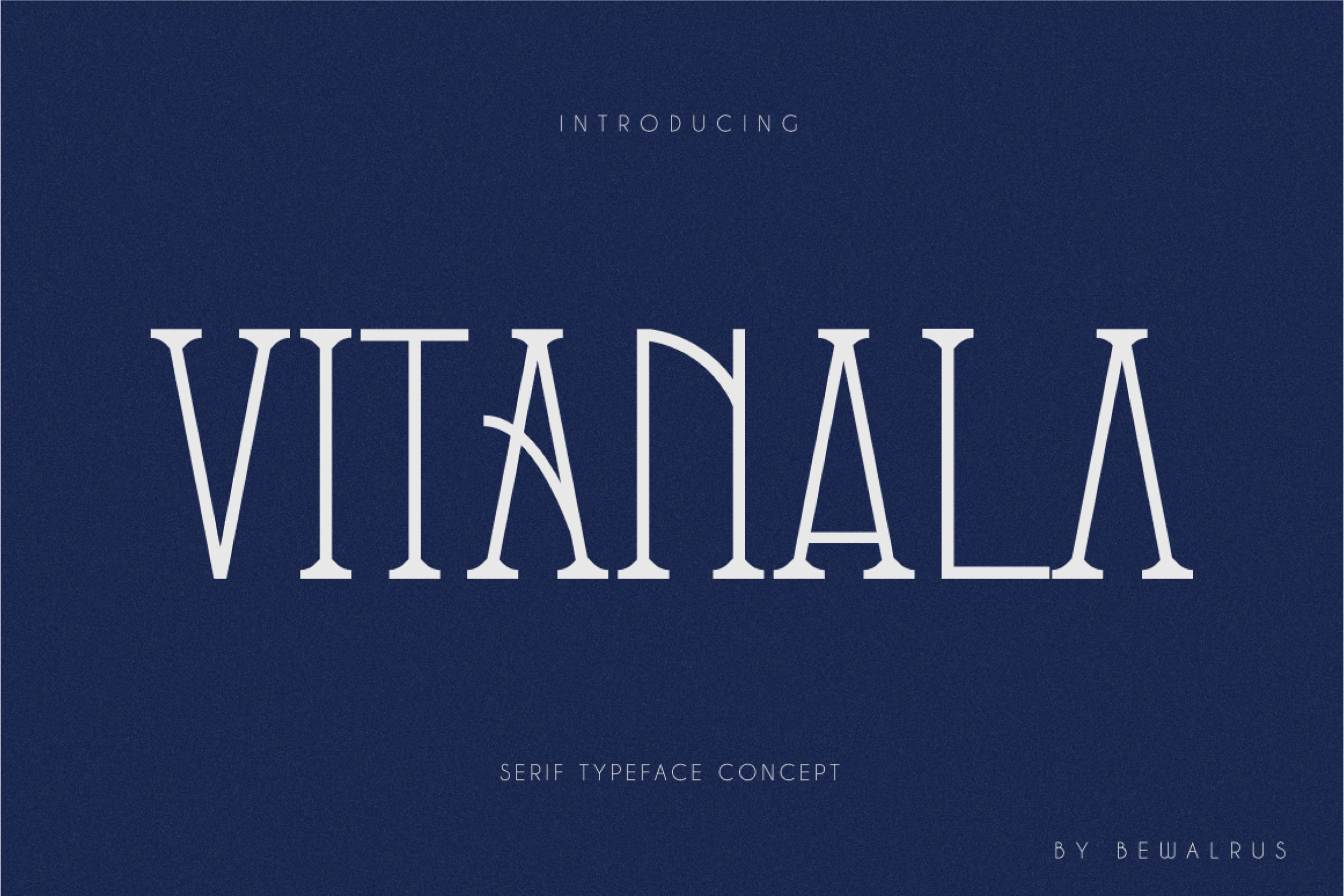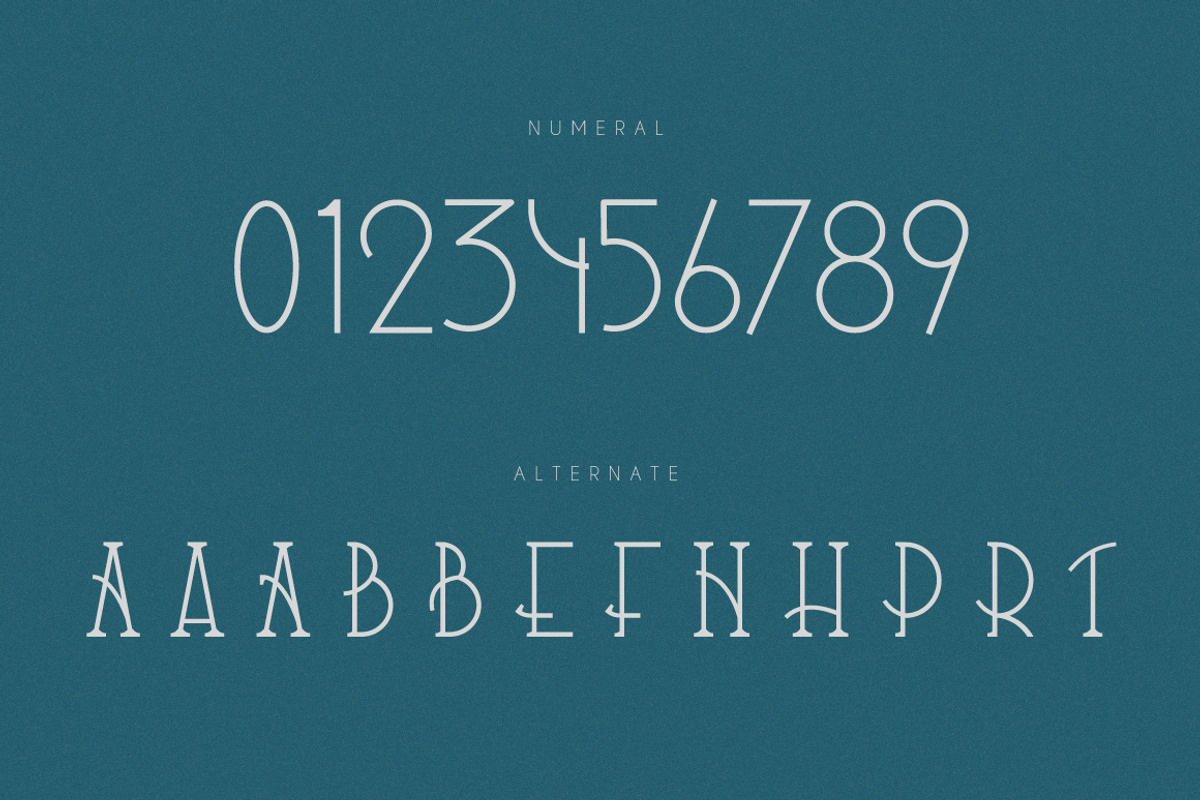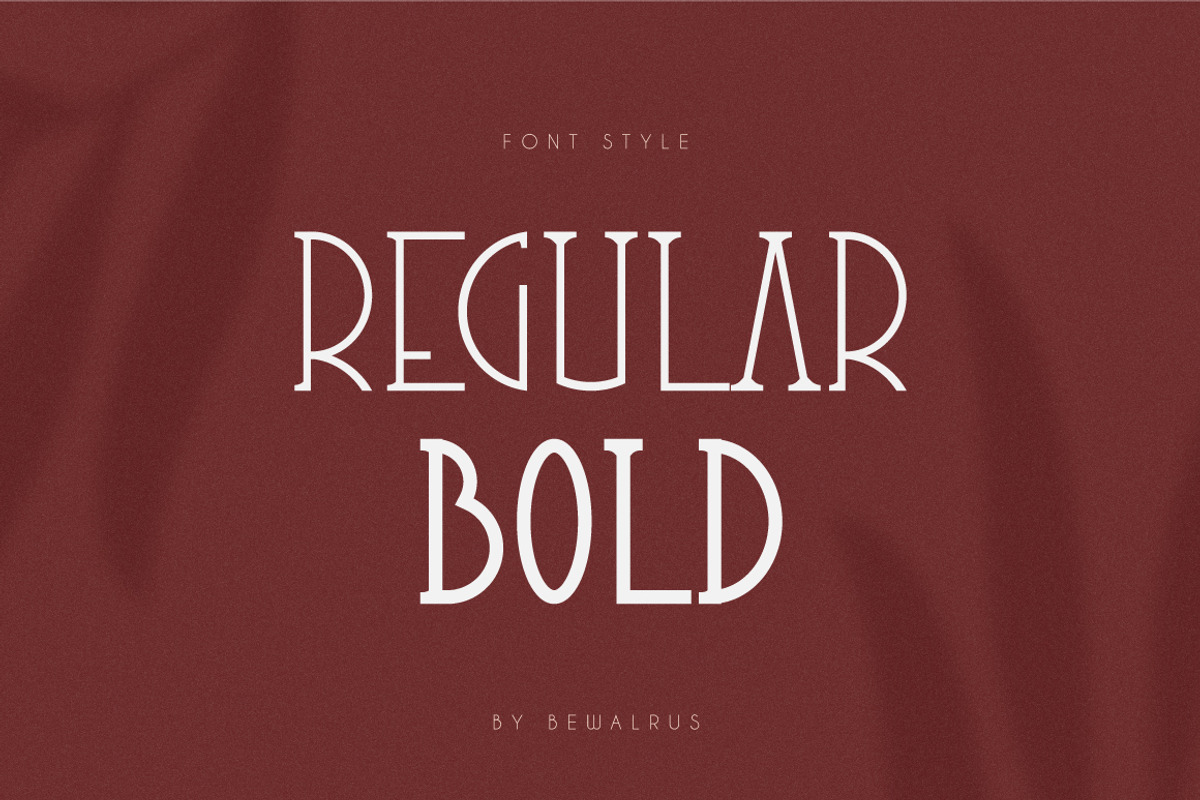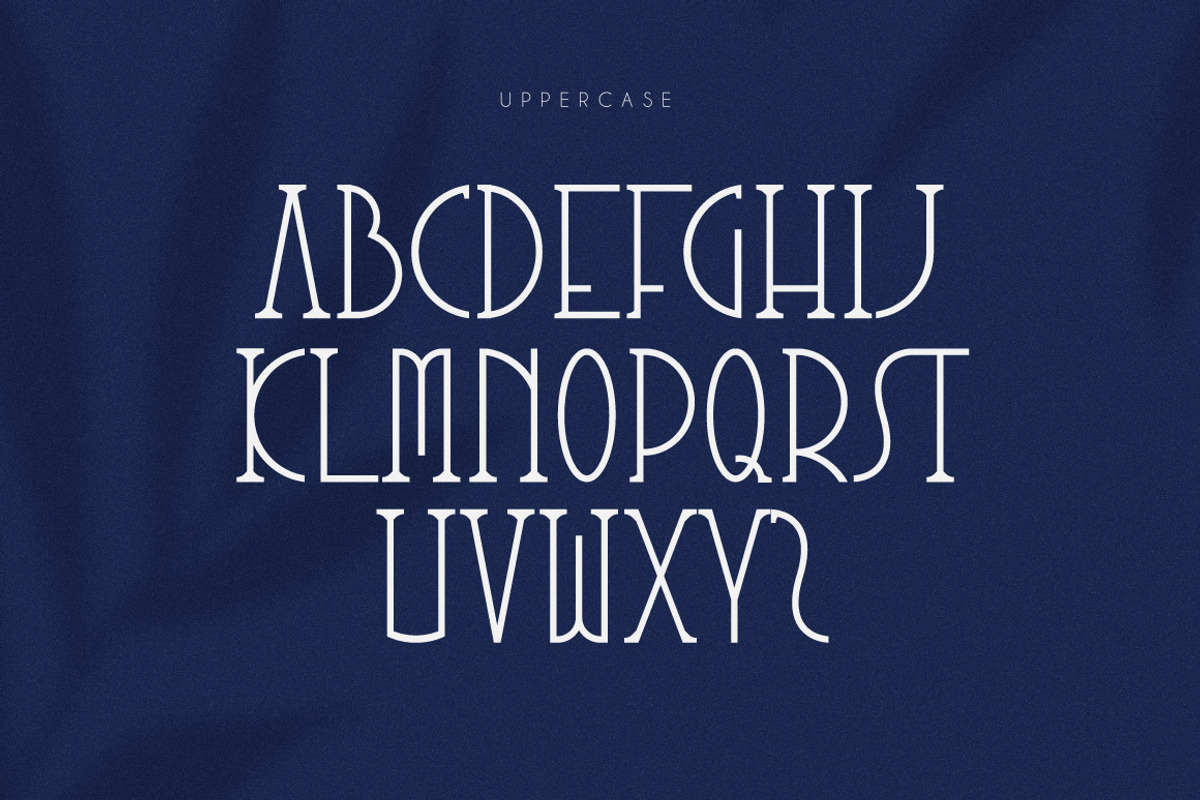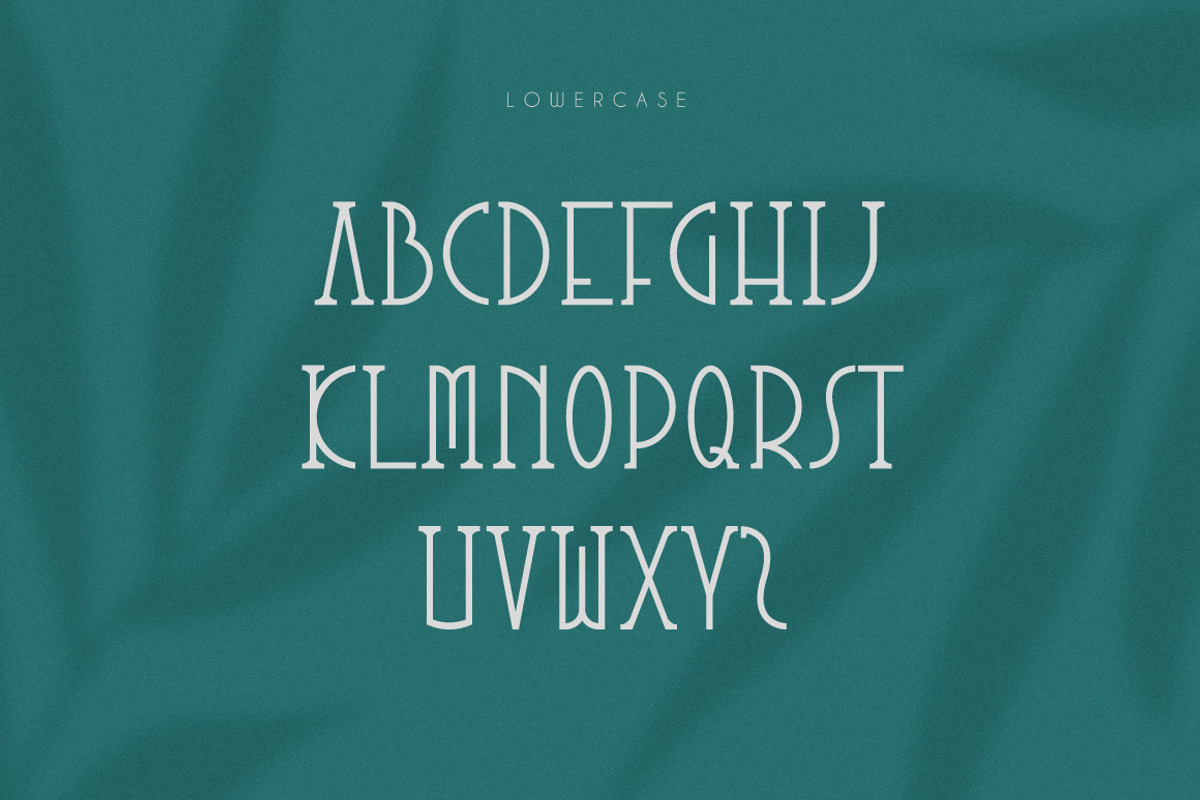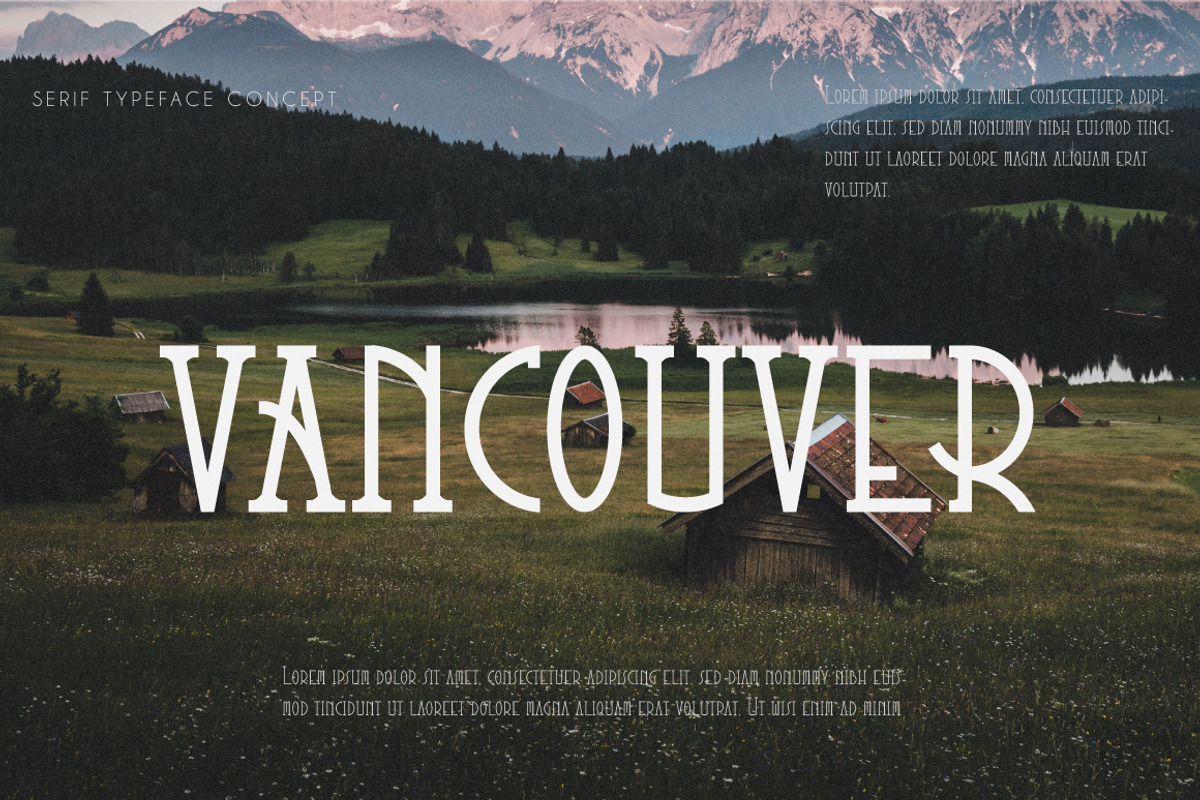
Vitanala | Elegant Serif Font
Vitanala is unique and elegant serif font. This font is inspired by an art deco style with classic taste. This font suitable for logo, advertising, product packaging, magazine header or label.